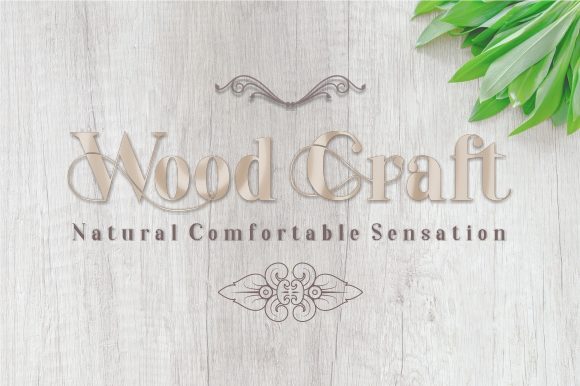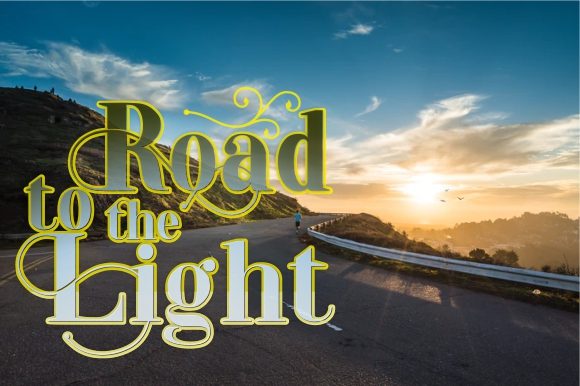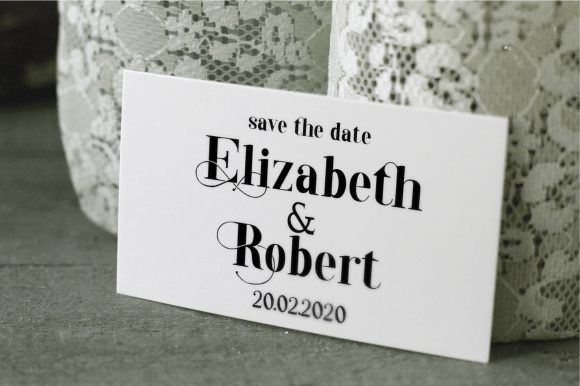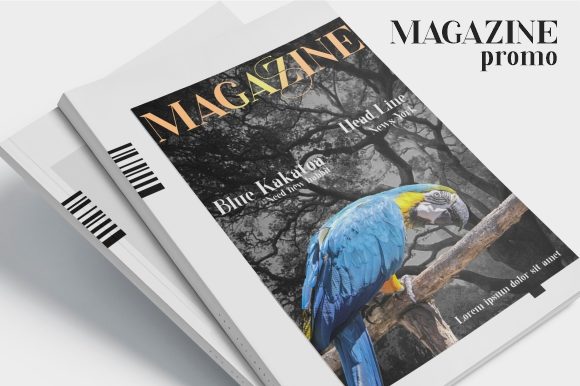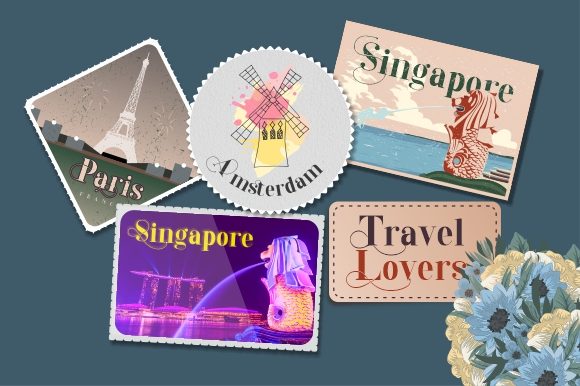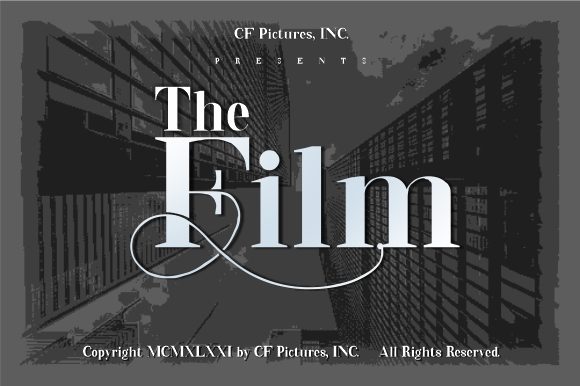
Discover the Elegance of Drifter Seriff Font: Elevate Your Designs with a Unique Serif Typeface
In the world of typography, a font can make or break a design. For designers and crafters looking for a typeface that exudes elegance and sophistication, Drifter Seriff is an excellent choice. This beautiful serif font is designed to make your designs stand out, whether you’re working on a formal or non-formal project. With its neat and beautiful arrangement of letters, Drifter Seriff is sure to capture the attention of your audience.
What Makes Drifter Seriff Unique?
Drifter Seriff is not just another serif font. Its unique design sets it apart from more traditional typefaces. The font features elegant lines, perfectly balanced proportions, and a distinctive seriff that adds a touch of sophistication. The neat arrangement of letters ensures that the text is easy to read, making it perfect for a wide range of applications, from luxury branding to elegant stationery.
Key Features of Drifter Seriff Font
- Elegant Design: Drifter Seriff boasts an elegant design that is perfect for formal and high-end designs.
- Unique Serif: The distinctive seriff adds a touch of uniqueness to the font, making it stand out from more traditional serif fonts.
- Neat Letter Arrangement: The font features a neat and beautiful arrangement of letters, ensuring that the text is easy to read.
- Versatility: Drifter Seriff is versatile and can be used in a variety of design projects, from luxury branding to elegant stationery.
Use Cases for Drifter Seriff Font
Drifter Seriff is a versatile font that can be used in a variety of design projects. Here are some use cases where this elegant serif font shines:
- Luxury Branding: Use Drifter Seriff to create a luxurious and sophisticated brand identity that exudes elegance.
- Elegant Stationery: Add a touch of elegance to your stationery designs, including business cards, letterheads, and invitations.
- Web Design: Use Drifter Seriff as a heading font or for body text to add a touch of sophistication to your website.
- Packaging Design: The font is perfect for packaging designs that require a touch of elegance and sophistication.
Tips for Using Drifter Seriff Effectively
To get the most out of Drifter Seriff, here are some tips for using the font effectively:
- Pair with a Sans-Serif Font: Pair Drifter Seriff with a sans-serif font to create a beautiful contrast that adds visual interest to your design.
- Use for Headings: Use Drifter Seriff as a heading font to add a touch of elegance and sophistication to your design.
- Experiment with Colors: Experiment with different colors to find the perfect combination that complements the font.
Drifter Seriff is an elegant and unique serif font that is perfect for designers and crafters looking to add a touch of sophistication to their designs. With its neat and beautiful arrangement of letters, this typeface is sure to make your designs stand out. Whether you’re working on a formal or non-formal project, Drifter Seriff is a versatile font that can be used in a variety of applications. So why settle for an ordinary font when you can elevate your designs with the elegance of Drifter Seriff?